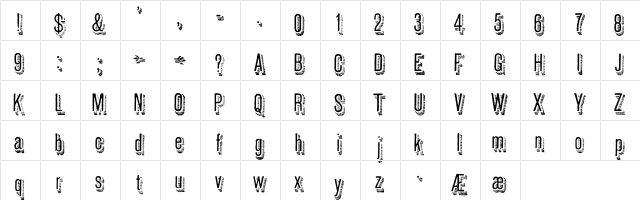
Archive Grotesque Shaded Regular
Design Context for Archive Grotesque Shaded Typeface
Archive Grotesque Shaded offers clean, dependable letterforms without strong stylistic allegiance, making it a practical choice for designers who need flexibility.